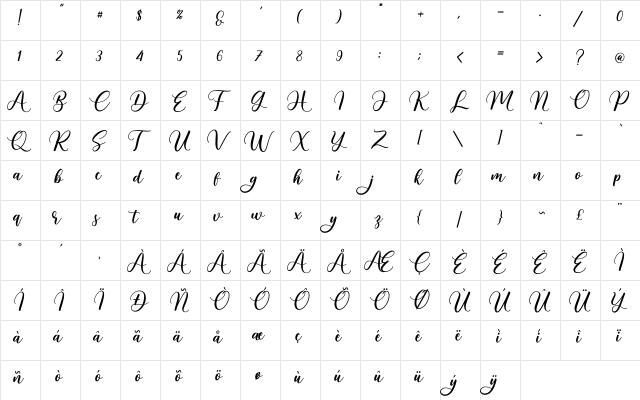
Houshie_Demo Regular Font Preview
Houshie_Demo Regular
Design Context for Houshie_Demo Typeface
Houshie_Demo is a composed and adaptable typeface that performs quietly and consistently across a wide range of design contexts.